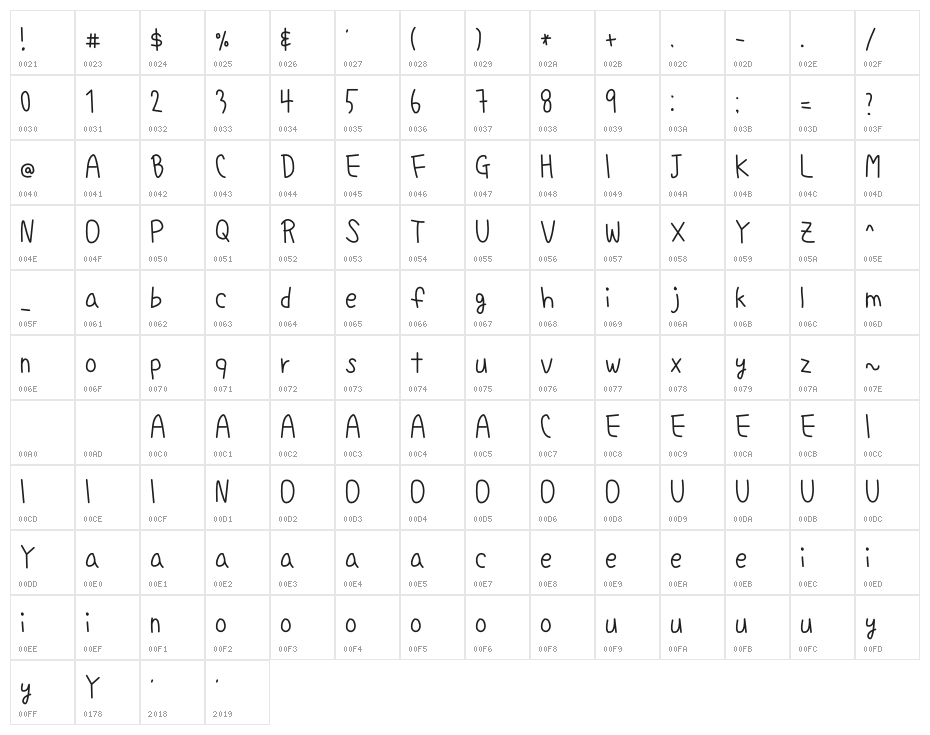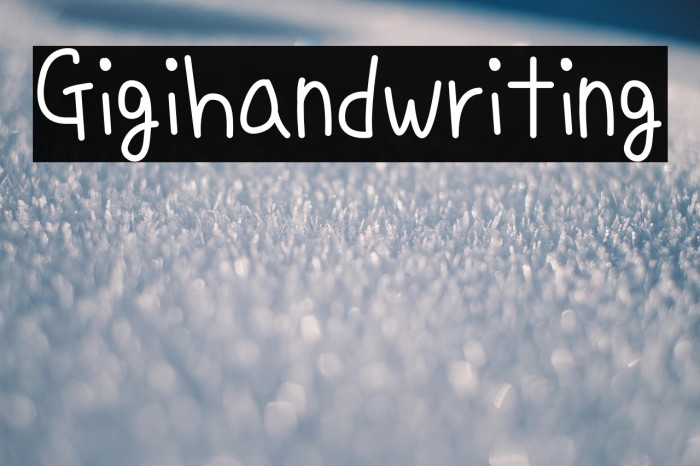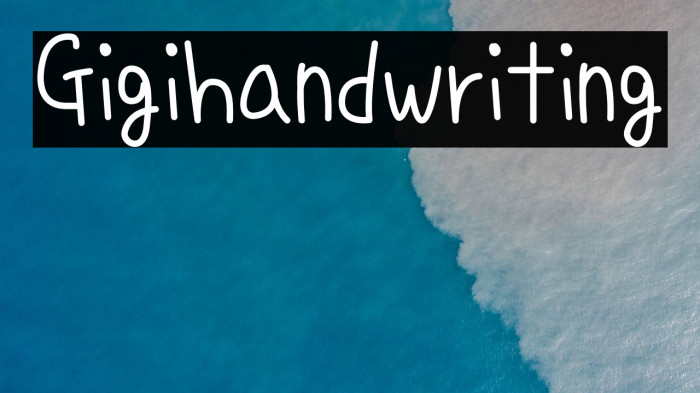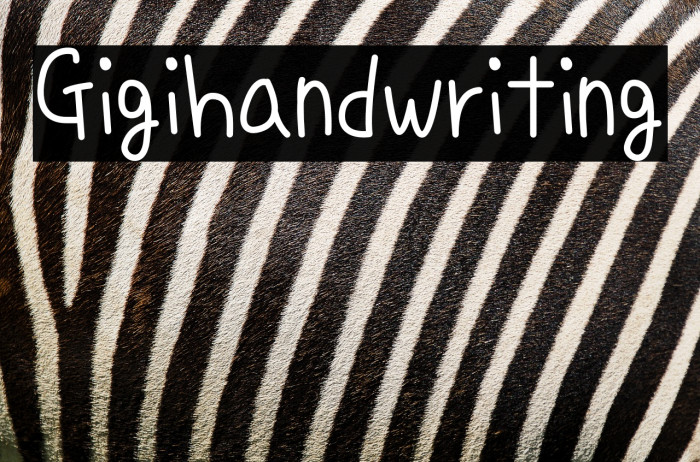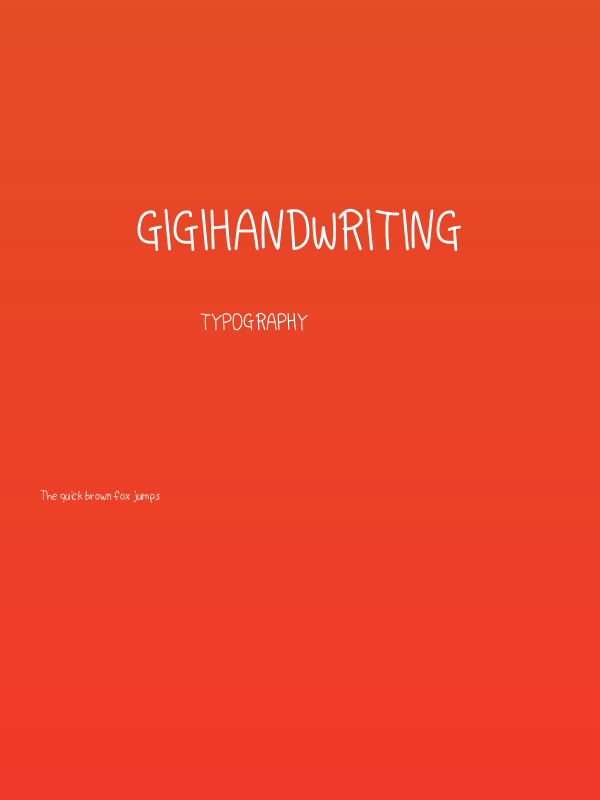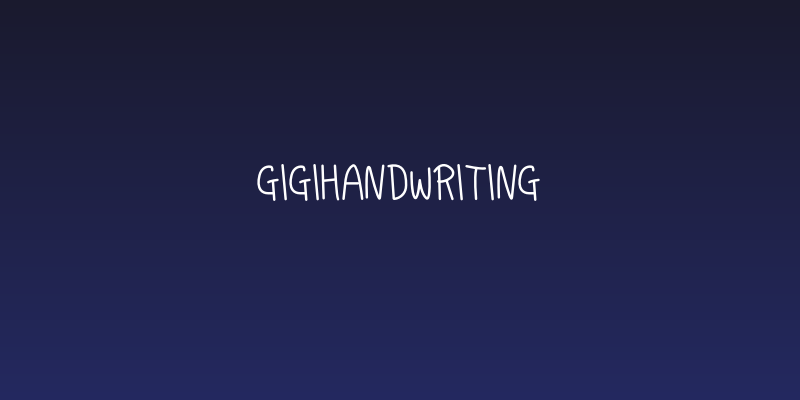
Gigihandwriting Font
Gigihandwriting Description
This font exudes a playful and casual handwritten style, characterized by its smooth, rounded strokes and slightly irregular letterforms that mimic natural handwriting. The characters are evenly spaced, maintaining a consistent flow that enhances readability while preserving a personal touch. The uppercase and lowercase letters are well-proportioned, with a slight slant that adds to the informal aesthetic. Numbers and special characters are crafted with the same attention to detail, ensuring a cohesive look across all elements. This font is ideal for projects that require a friendly and approachable feel.
| Use Case | Headlines, Informal text, Personal projects |
| Proposed Projects | Ideal for greeting cards, personal notes, children's books, and informal branding. |